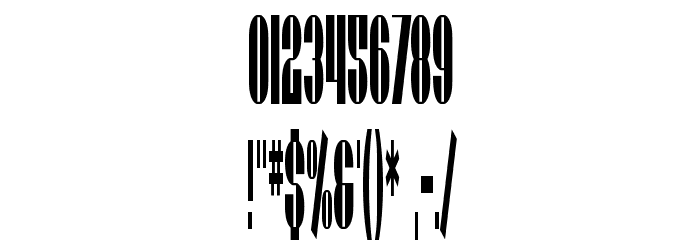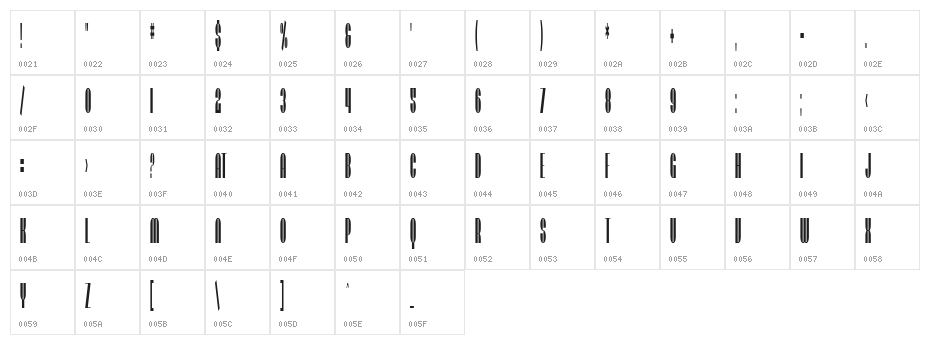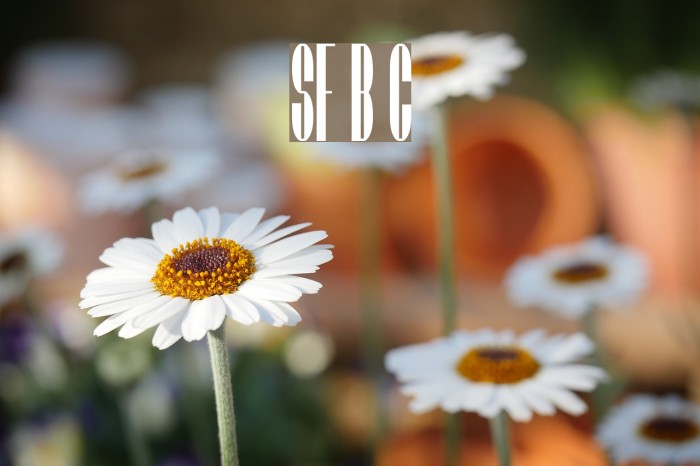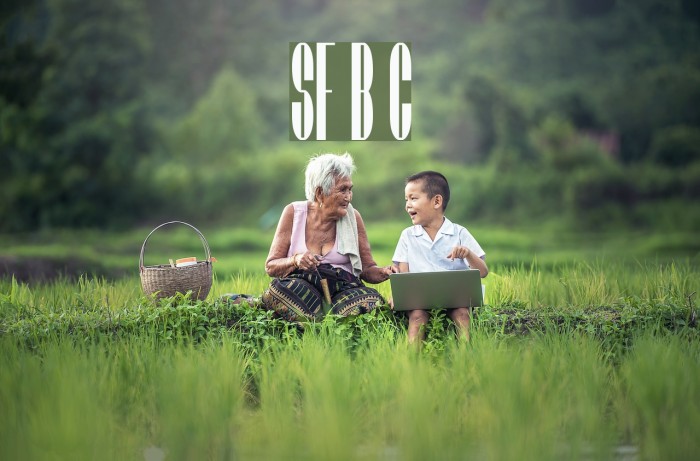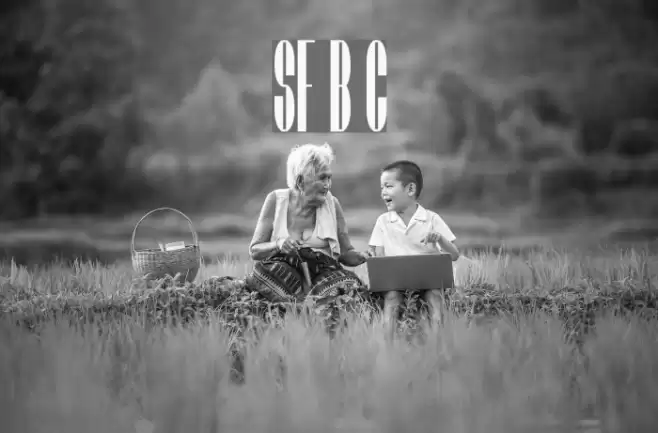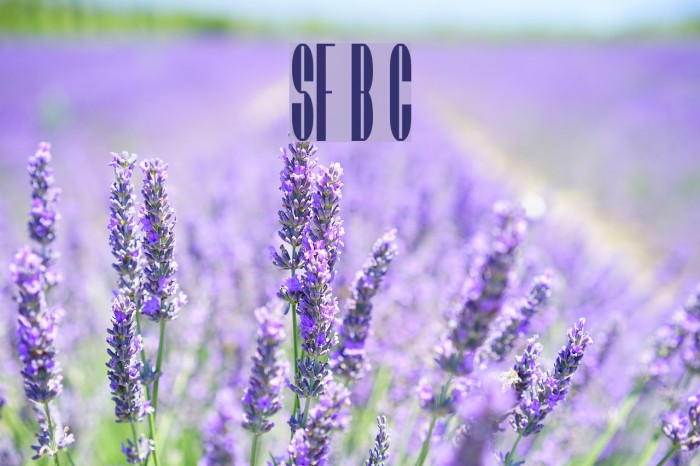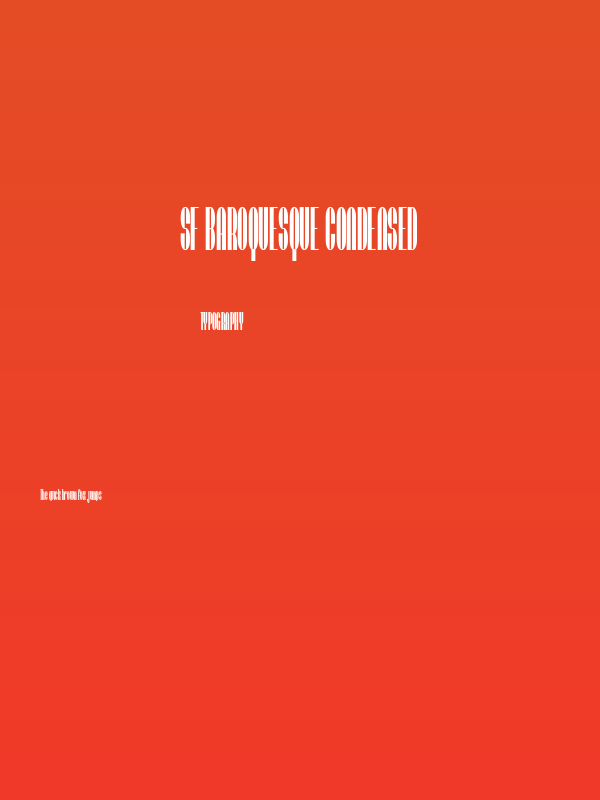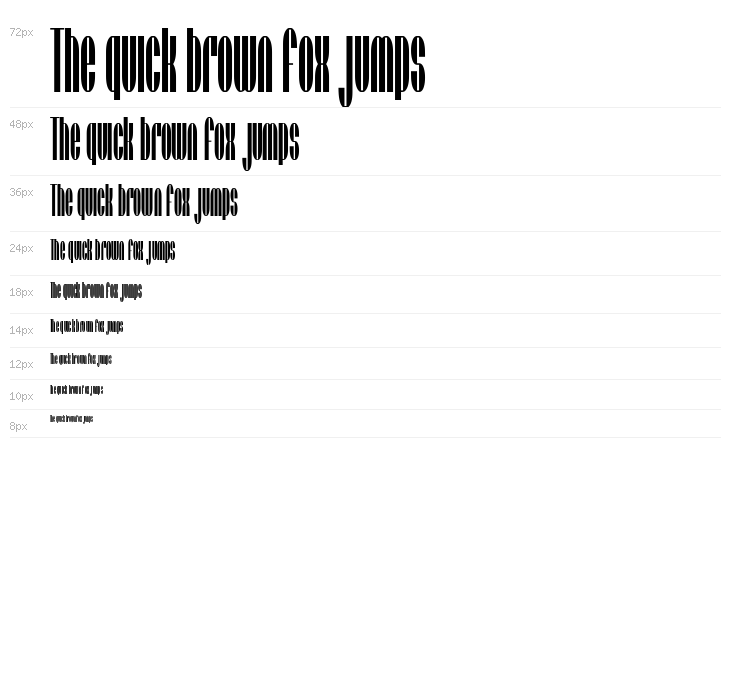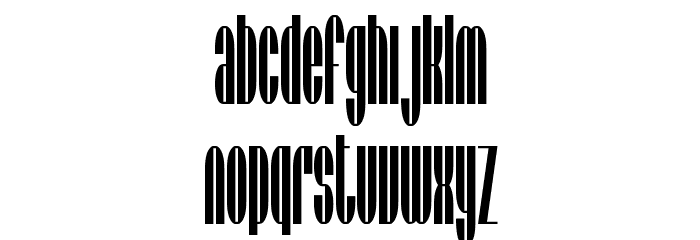
SF Baroquesque Condensed Font
SF Baroquesque Condensed Description
This font features a striking and bold design with a condensed width, creating a dramatic and impactful appearance. The characters are tall and narrow, with high contrast between thick and thin strokes, giving it a distinctive and elegant look. The uppercase and lowercase letters maintain a consistent style, with sharp angles and clean lines. The numerals and special characters follow the same condensed and bold aesthetic, ensuring uniformity across all glyphs. This font's unique style makes it suitable for eye-catching designs that require a strong visual presence.
| Proposed Projects | Ideal for poster designs, branding projects, and headlines that demand attention. |